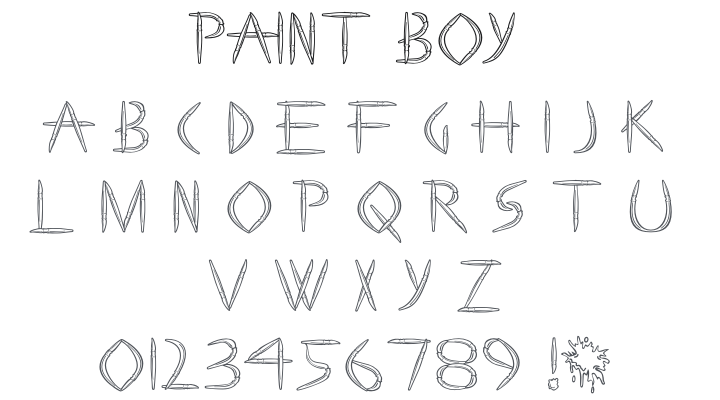
Paint Boy Font
About Paint Boy
Paint Boy is a wonderfully bizarre novelty display typeface where every letterform is constructed entirely from paintbrushes — the handles, ferrules, and bristle tips arranged and bent into readable shapes. The result is intricate, hand-crafted, and unmistakably unique. Perfect for art school branding, painter's studio signage, creative agency logos, craft supply packaging, and any design celebrating the visual arts with playful ingenuity.